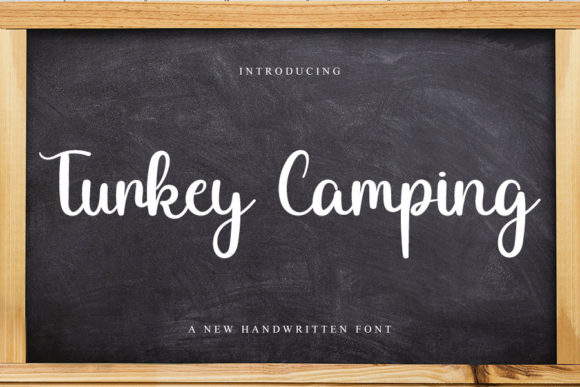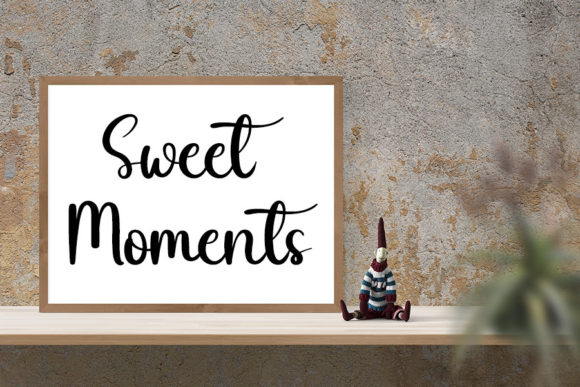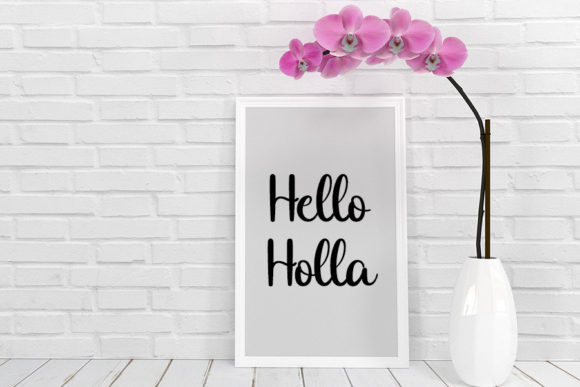
About Turkey Camping Font
Turkey Camping is a stylish handwritten font with a contemporary atmosphere and impeccable form, inspired by timeless classic calligraphy. Not too thin and not too thick, balanced and varied, this font was designed to enhance the beauty of your projects. Fall in love with it and bring your designs to the highest level!